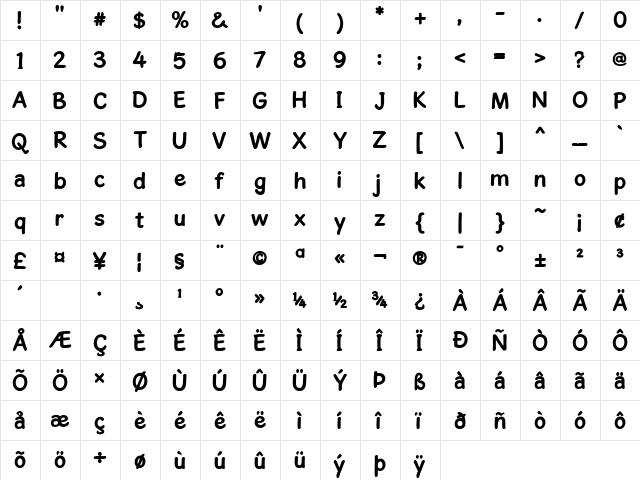
GosmickSans Bold
Design Context for GosmickSans Typeface
GosmickSans offers clean, dependable letterforms without strong stylistic allegiance, making it a practical choice for designers who need flexibility. The heavy weight commands attention and anchors typographic hierarchies.